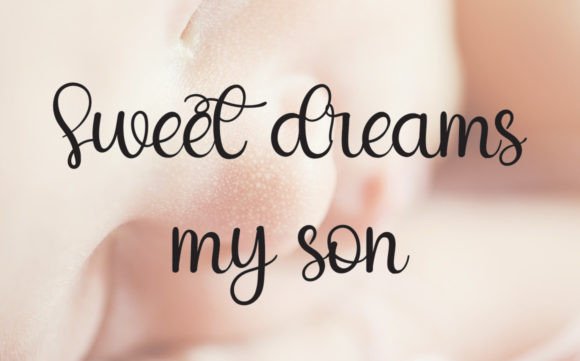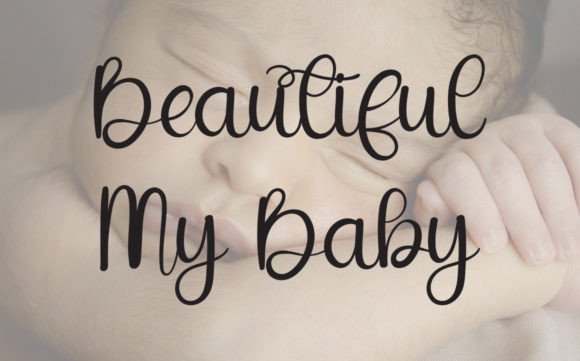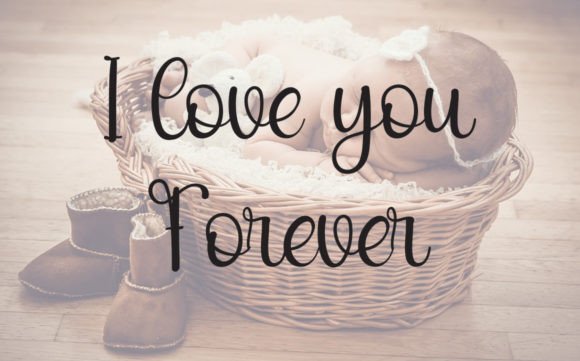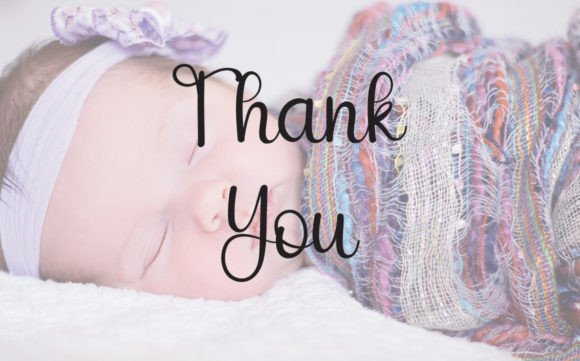
Introducing Chubby Font: The Enchanting Handwritten Font for Your Creative Projects
Are you a designer or crafter looking for a font that can add a touch of romance and whimsy to your next project? Look no further than Chubby Font! This enchanting handwritten font is versatile, charming, and perfect for a wide range of applications. From greeting cards to headlines, Chubby Font is guaranteed to make your project stand out.
What Makes Chubby Font So Special?
Chubby Font is a unique and captivating font that boasts a distinctive handwritten style. Its enchanting charm makes it perfect for projects that require a personal touch. The font’s versatility is one of its most significant advantages, allowing you to use it for various applications, including:
- Greeting cards: Add a romantic touch to your greeting cards with Chubby Font’s whimsical and playful style.
- Headlines: Make your headlines stand out with Chubby Font’s bold and eye-catching design.
- Invitations: Create beautiful and elegant invitations for weddings, parties, and other special events.
- Logos: Use Chubby Font to create a unique and memorable logo for your brand.
- Social media graphics: Add a personal touch to your social media graphics, such as Instagram posts and Facebook covers.
The Benefits of Using Chubby Font
Chubby Font offers several benefits that make it an excellent choice for designers and crafters. Some of the advantages of using Chubby Font include:
- Romantic feel: Chubby Font adds a touch of romance and whimsy to your project, making it perfect for projects that require a personal and emotional connection.
- Versatility: Chubby Font can be used for a wide range of applications, from greeting cards to headlines.
- Unique style: Chubby Font boasts a unique and captivating style that will make your project stand out from the crowd.
Tips for Using Chubby Font
To get the most out of Chubby Font, here are some tips to keep in mind:
- Pair it with other fonts: Chubby Font can be paired with other fonts to create a unique and visually appealing design.
- Experiment with colors: Chubby Font looks great in a variety of colors, so don’t be afraid to experiment and find the perfect color for your project.
- Use it for headings: Chubby Font is perfect for headings and titles, making it an excellent choice for creating eye-catching headlines.
Who Can Benefit from Chubby Font?
Chubby Font is perfect for a wide range of designers and crafters, including:
- Graphic designers: Chubby Font is perfect for graphic designers who want to add a personal touch to their designs.
- Crafters: Chubby Font is great for crafters who want to create beautiful and unique projects, such as handmade cards and invitations.
- Small business owners: Chubby Font can be used by small business owners who want to create a unique and memorable brand identity.